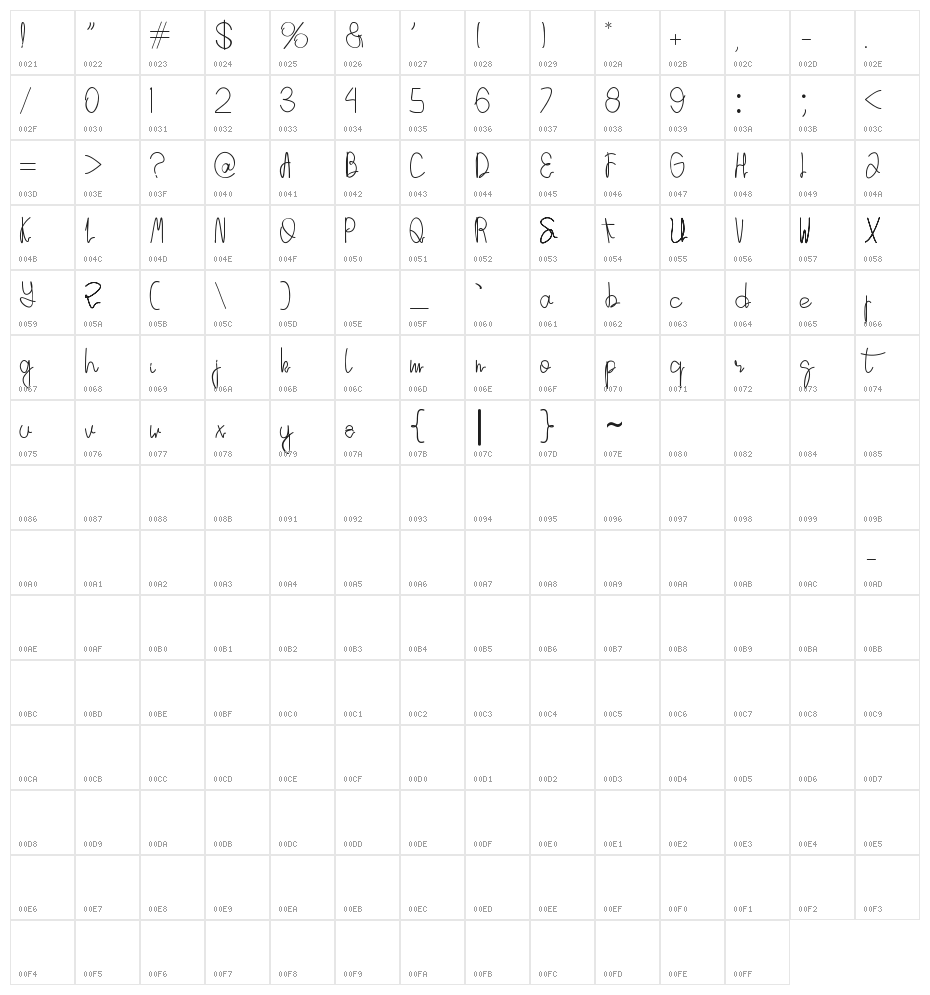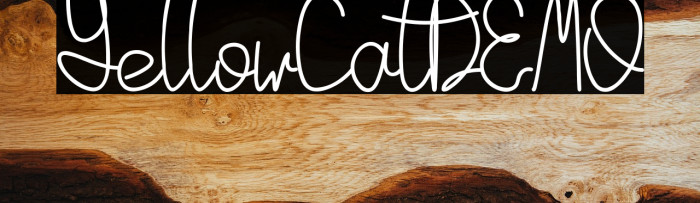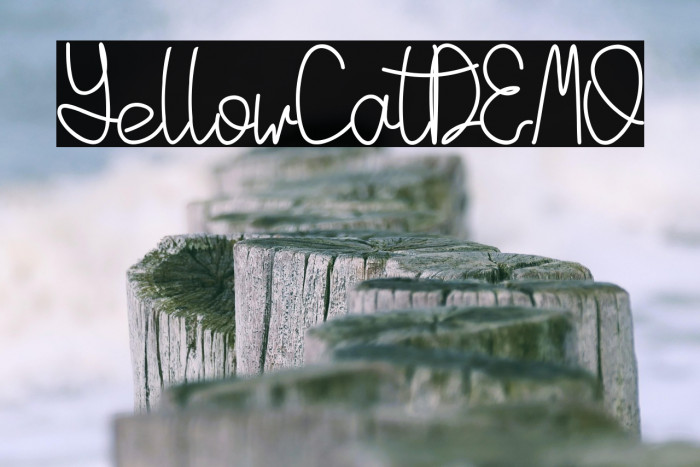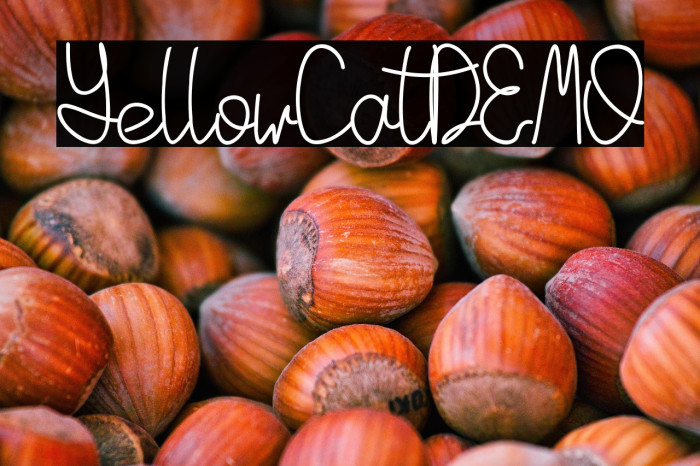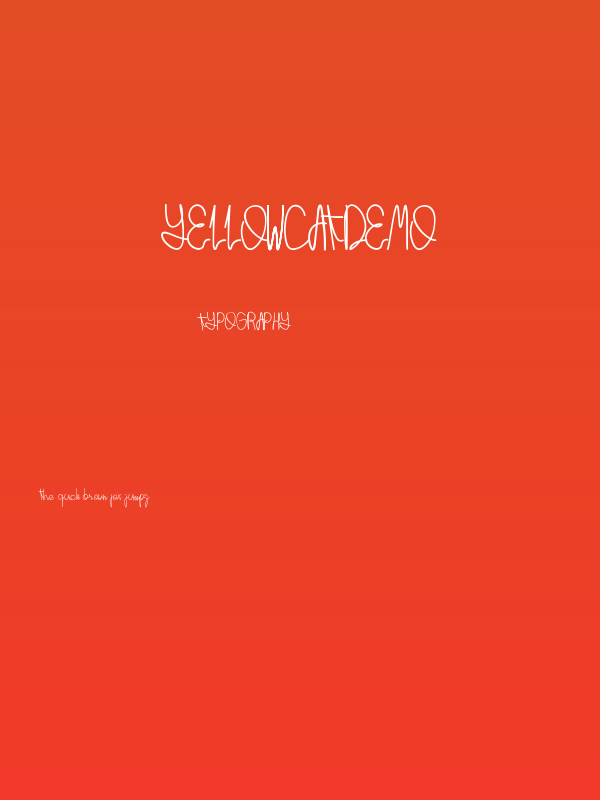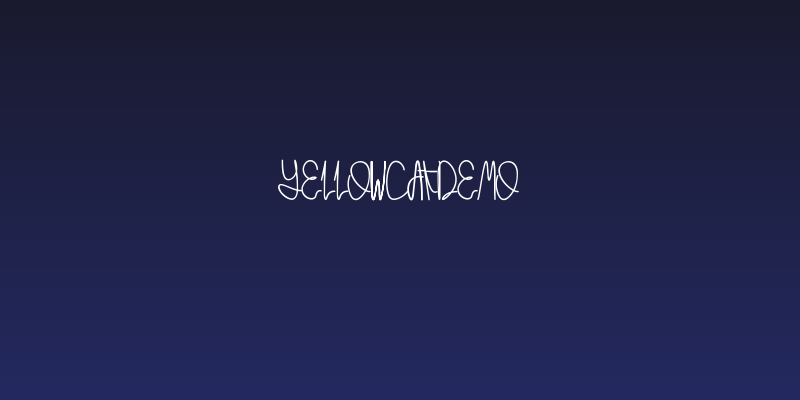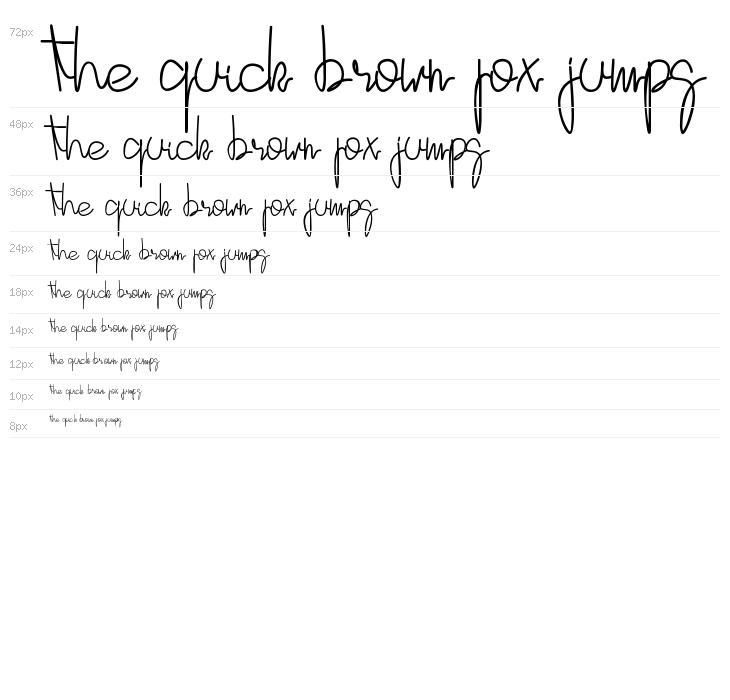
YellowCatDEMO Font
This font features a playful and whimsical handwritten style, characterized by its elongated and slightly irregular letterforms. The strokes are thin and fluid, giving it a casual and informal appearance. The uppercase and lowercase letters maintain a consistent flow, with some letters featuring unique loops and curves that add to its charm. The numerals and special characters follow the same playful aesthetic, making it versatile for creative projects. Its overall look is light-hearted and approachable, suitable for designs that aim to convey a sense of fun and creativity.
| Overall Style | Playful, Whimsical |
| Use Case | Logos, Headlines, Decorative text |
| Proposed Projects | Ideal for greeting cards, children's book covers, playful branding, and social media graphics. |